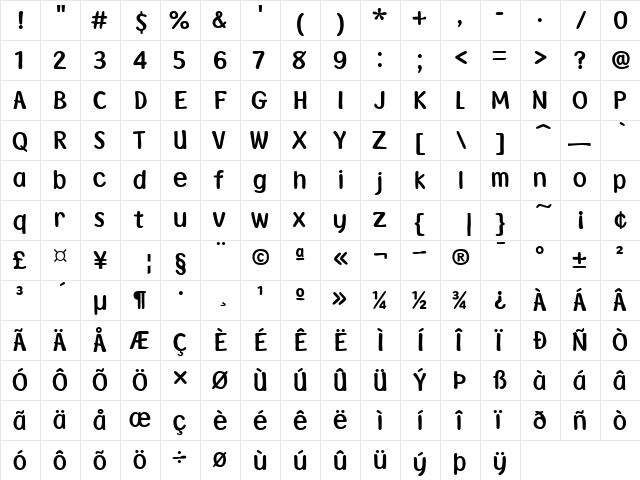
Disney Simple Regular
| Foundry | International Typeface Corporation |
Design Context for Disney Simple Typeface
Disney Simple is a composed and adaptable typeface that performs quietly and consistently across a wide range of design contexts.